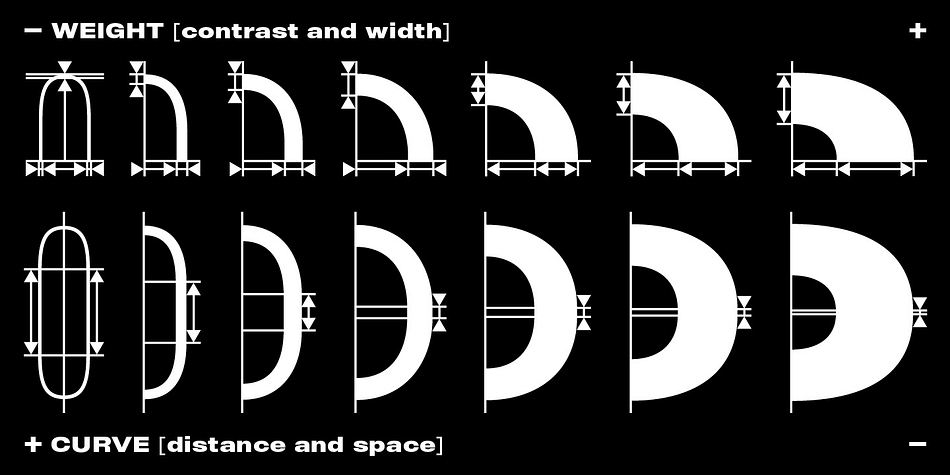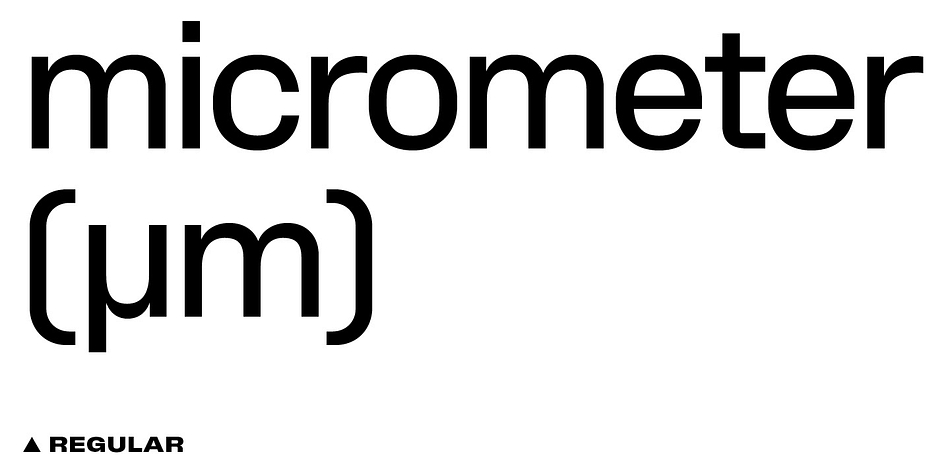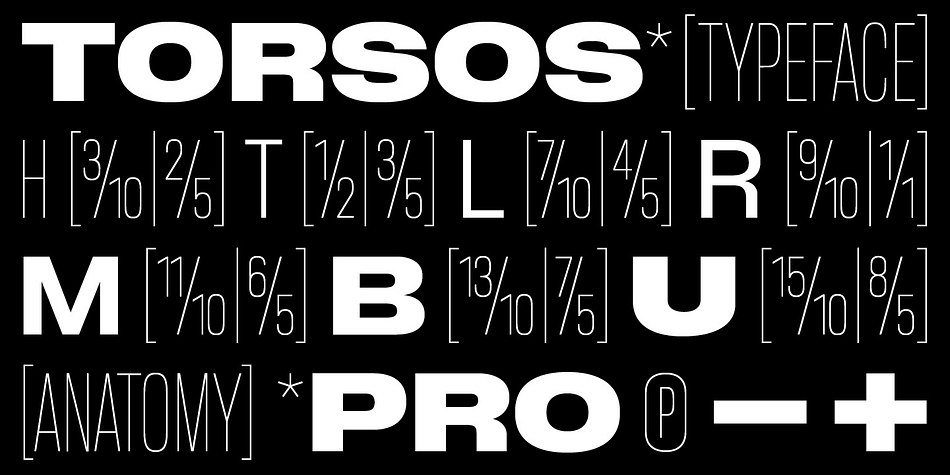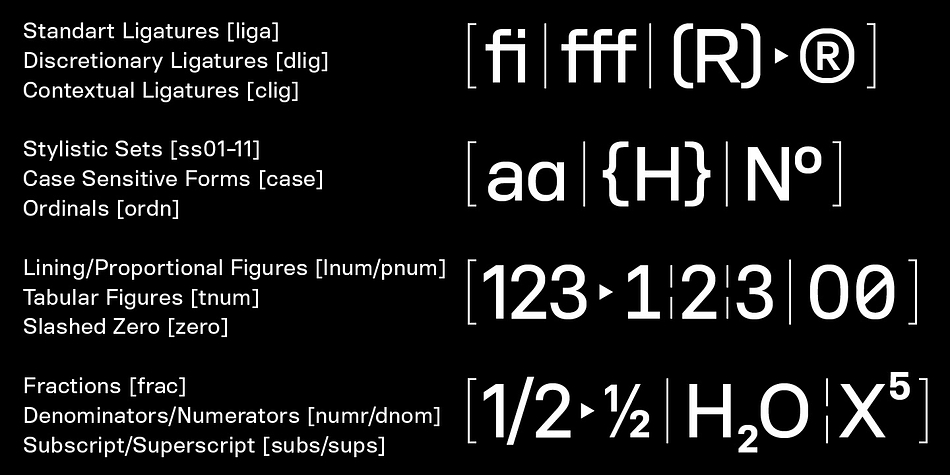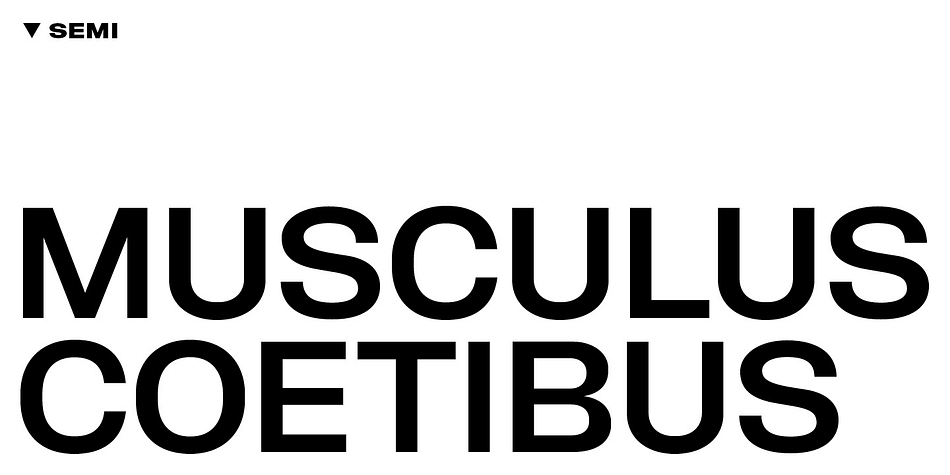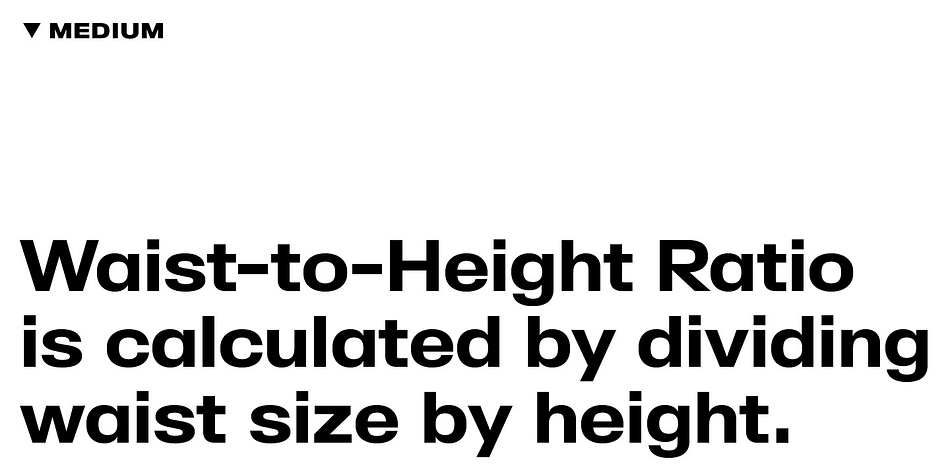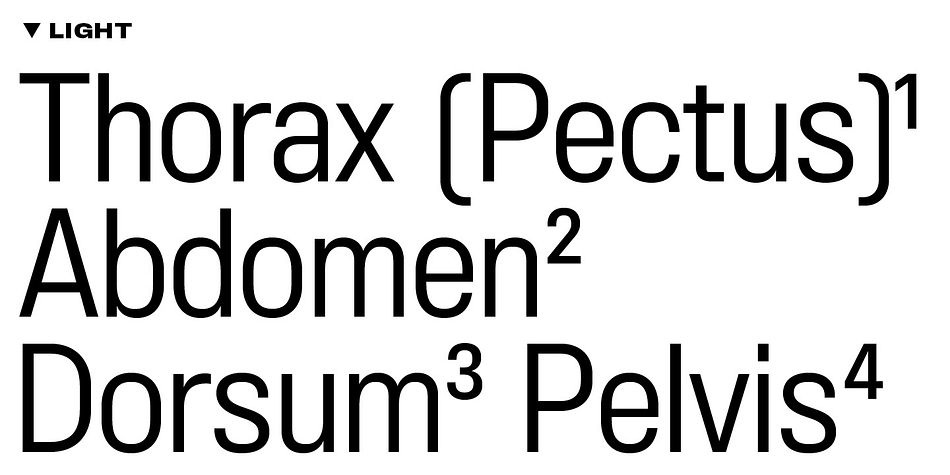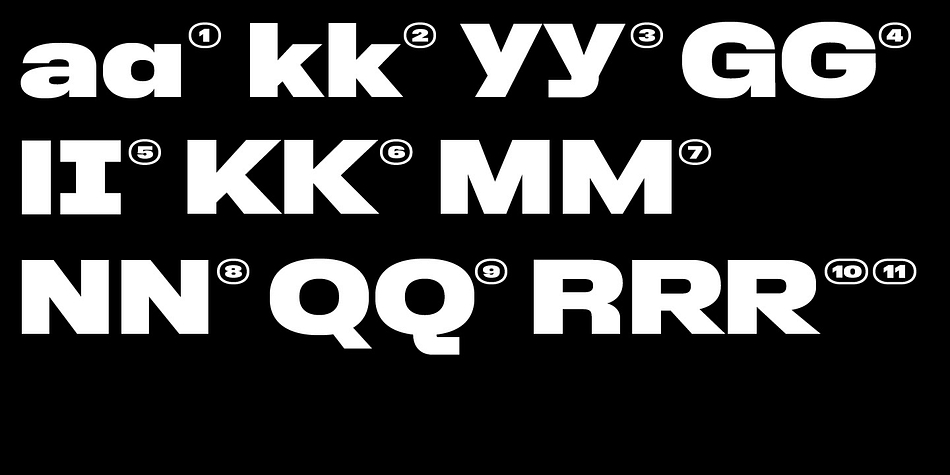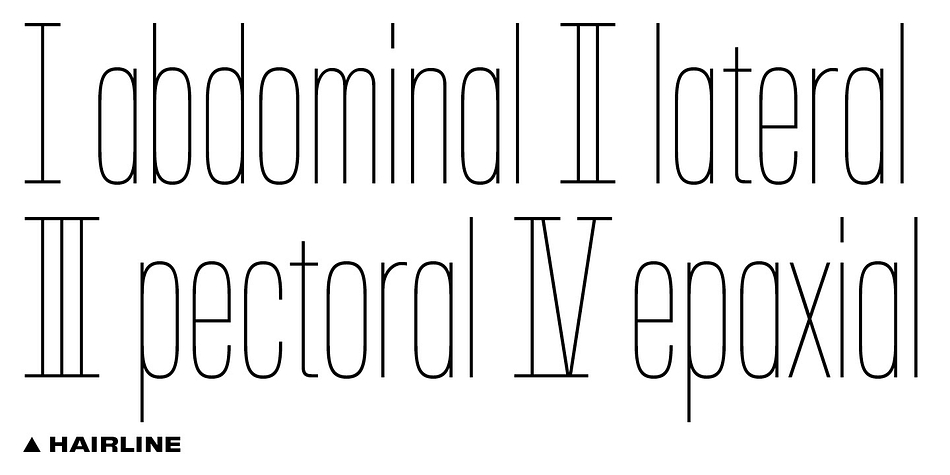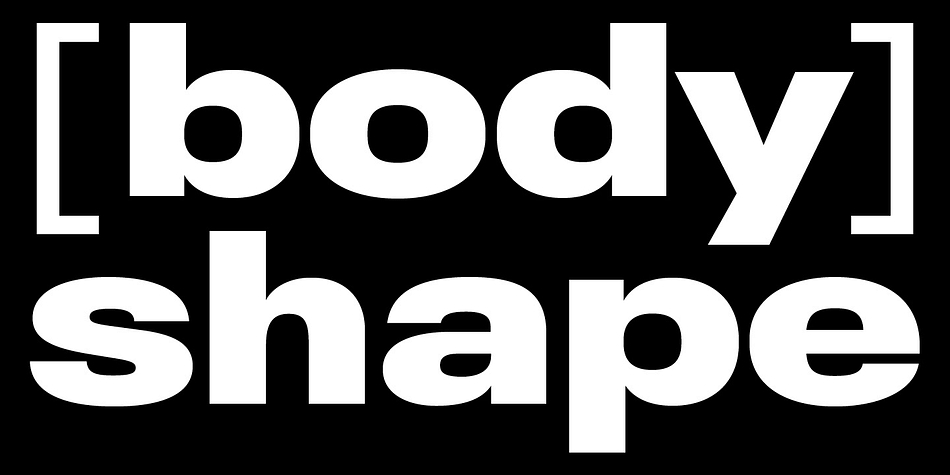
BB Torsos™ Pro is a sans serif font family. This typeface has thirteen styles and was published by Bold Studio.
BB Torsos™ Pro is based on the shape and proportion of the human body. For the interpolation of the typeface family, a special formula was developed, which reflects the different and individual character: flat to round, thin to fat and narrow to wide.
● 11 Stylistic Sets
● 13 Styles/Weights/widths
● 29 Opentype-Features/Style